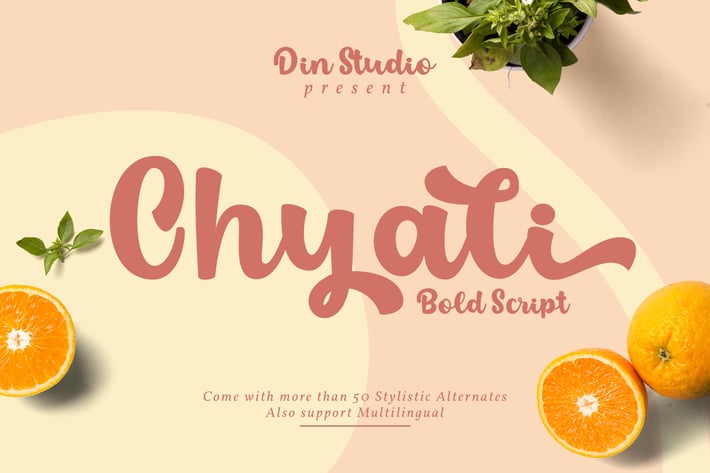
Chyali - Bold Script Font
Chyali is a bold script. It especially made for branding packaging especially for food packaging. the design can elevate your project design.
- Many Alternates
- Many Swash
- Numerals and Punctuation